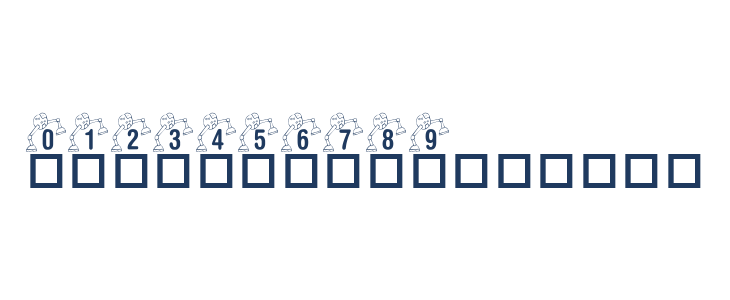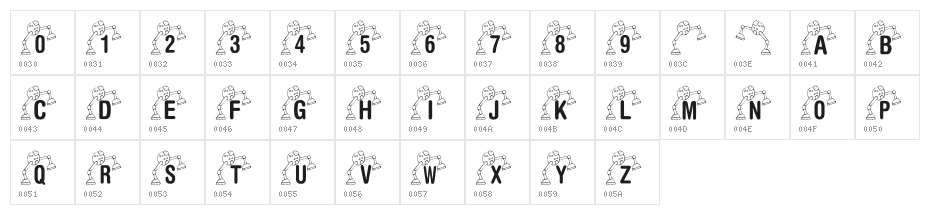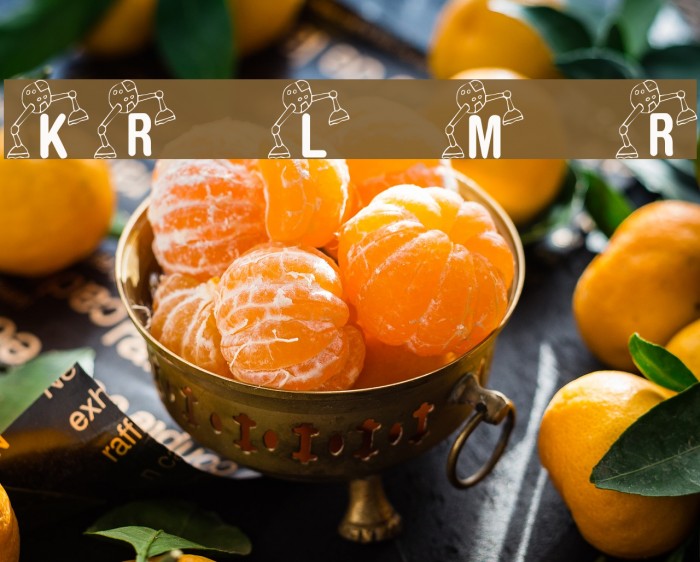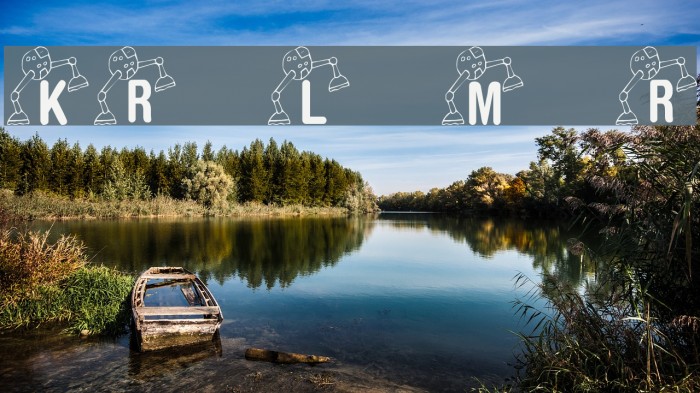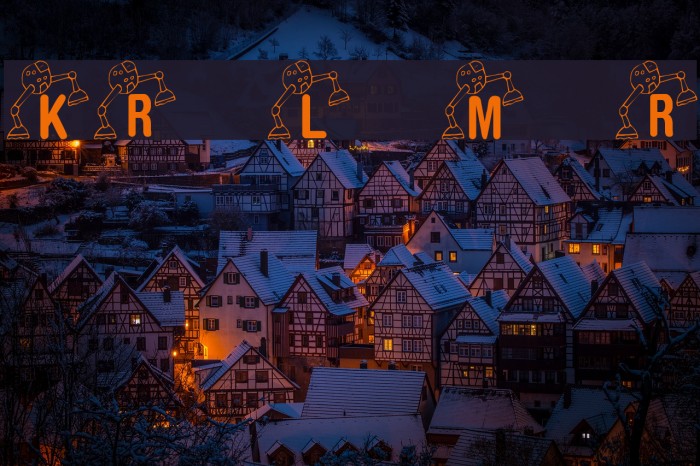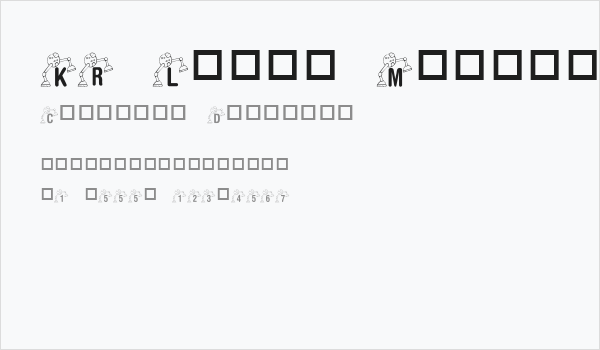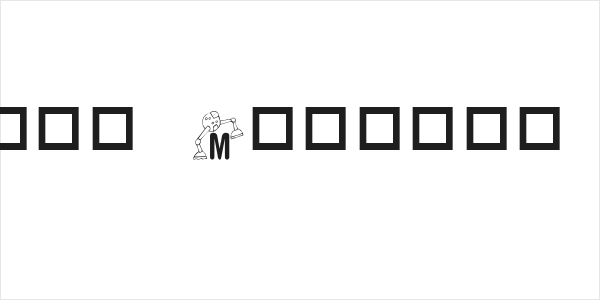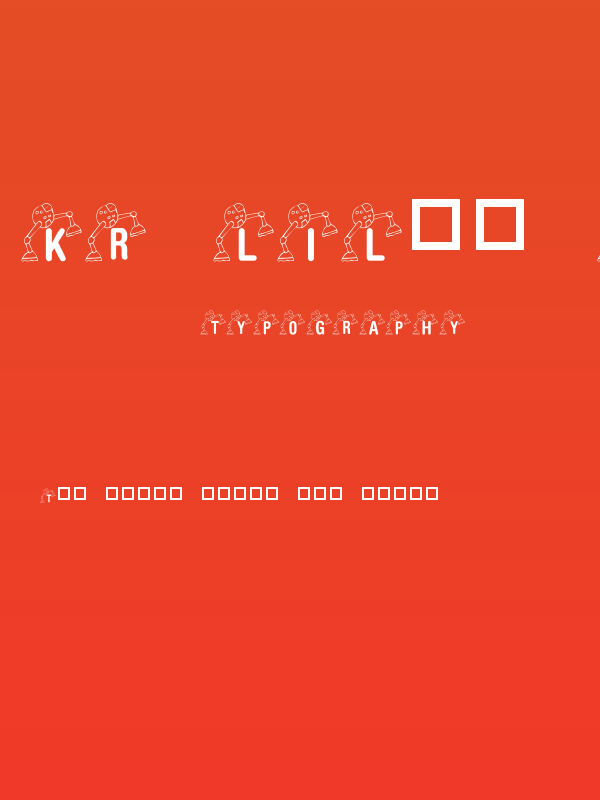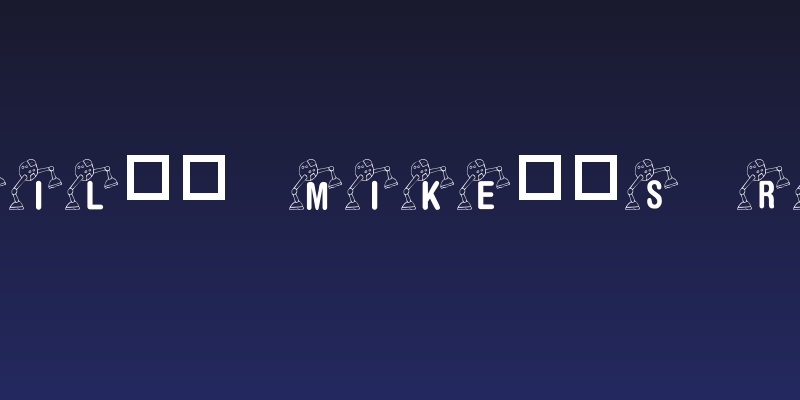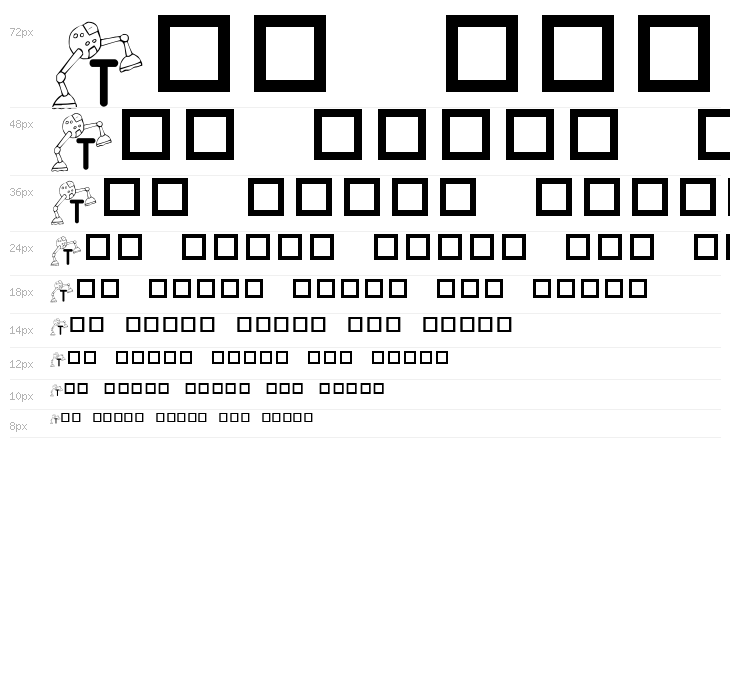
KR Lil' Mike's Robot Font
KR Lil' Mike's Robot Description
This playful and whimsical font features a unique design where each character is integrated into a robot figure. The uppercase letters and numbers are creatively embedded within the body of a cartoonish robot, giving it a distinctive and fun appearance. The font lacks lowercase letters and special characters, focusing instead on a charming and imaginative style. The robots are consistent in design, with each holding the character prominently, making it ideal for projects aimed at children or those requiring a lighthearted touch.
Overall StylePlayful
Use CaseLogos, Posters, Children's materials
Proposed ProjectsPerfect for children's books, educational materials, playful branding, and themed party invitations.